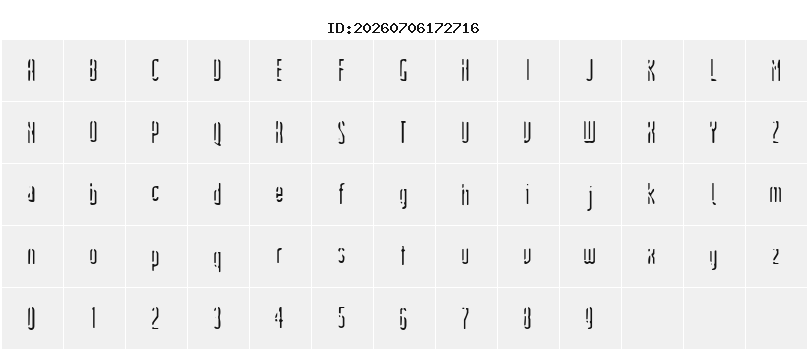
• Font Name: Devil's Handshake
• Full Font Name: Devil's Handshake
Devil's Handshake.ttf is a modern, elegant sans-serif font designed for ultimate readability and visual harmony. Perfect for branding, headlines, web design, and print materials.